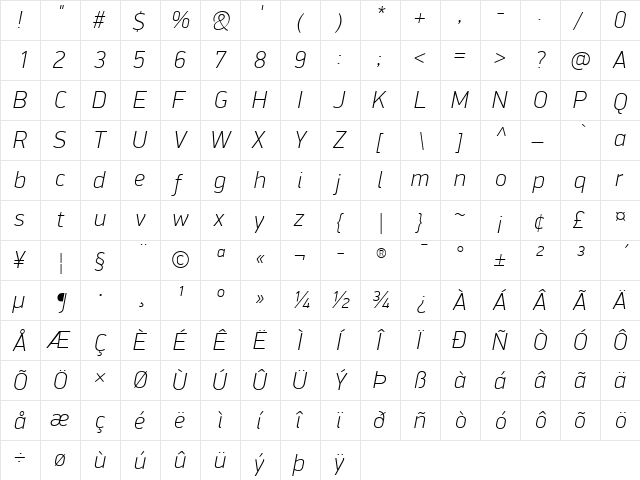
PF DinDisplay Pro Thin Italic Font Preview
Design Context for PF DinDisplay Pro Typeface
PF DinDisplay Pro is built around its visual character rather than neutral utility — its distinctive forms are designed to make an impression at display sizes. Its italic angle brings a sense of urgency and motion to the letterforms. The delicate stroke weight brings airiness and refinement to layouts.
Font Pairing: Pair with a clean neutral sans-serif for body copy to let PF DinDisplay Pro's character lead without overwhelming the composition.
Pro Tip: Treat PF DinDisplay Pro as the centrepiece of your typographic hierarchy. One strong heading set in a decorative face can carry an entire layout.